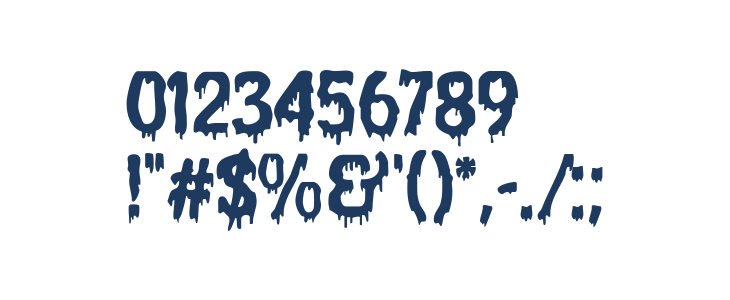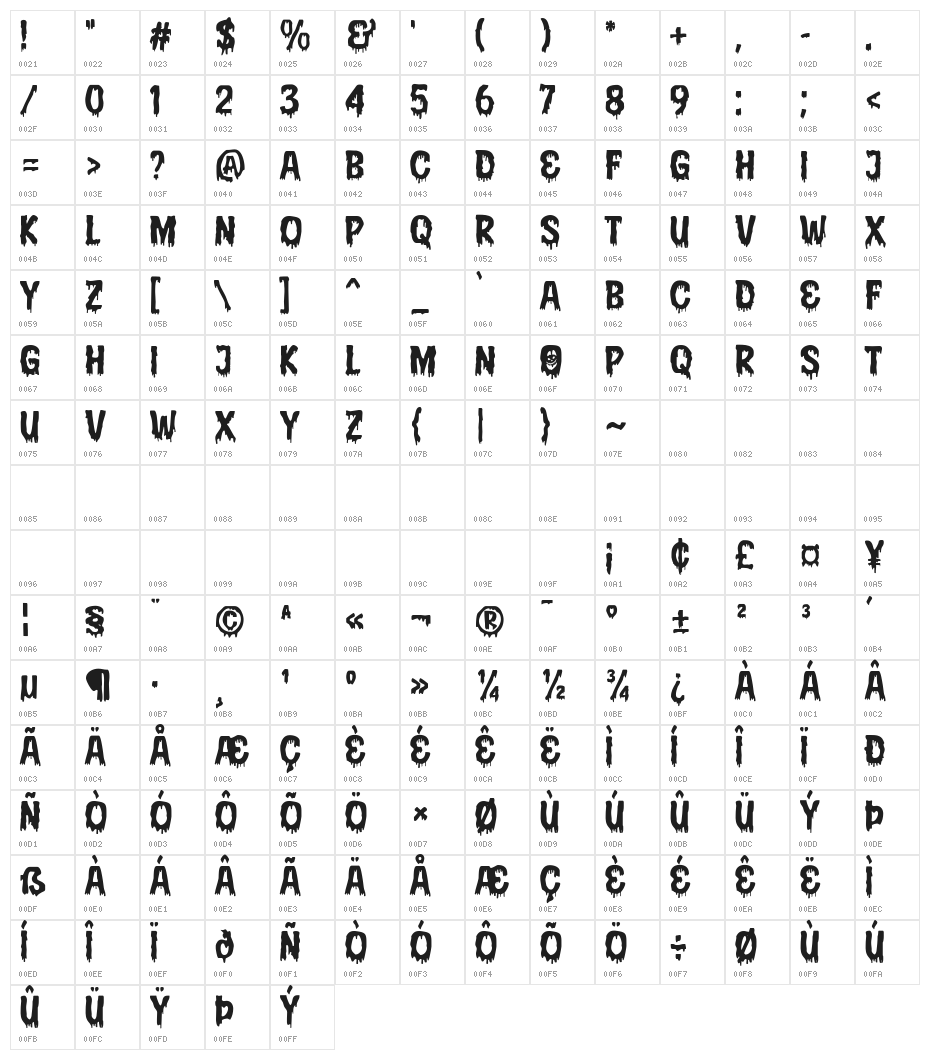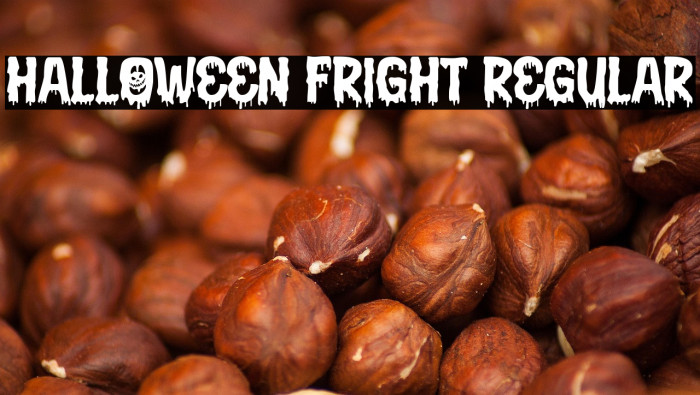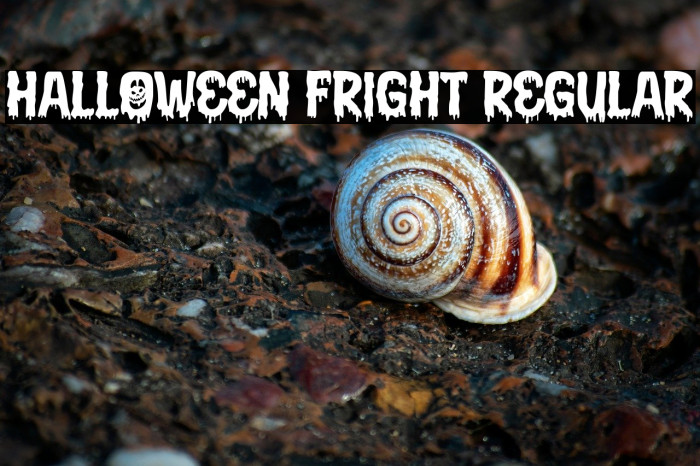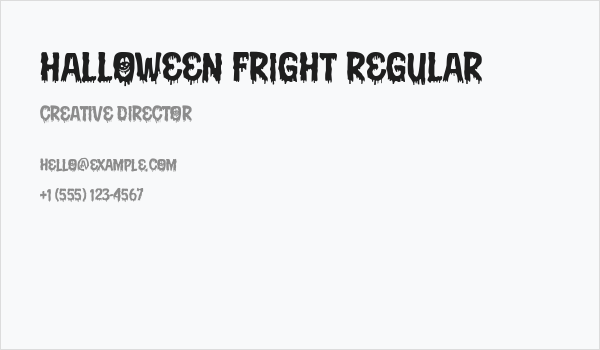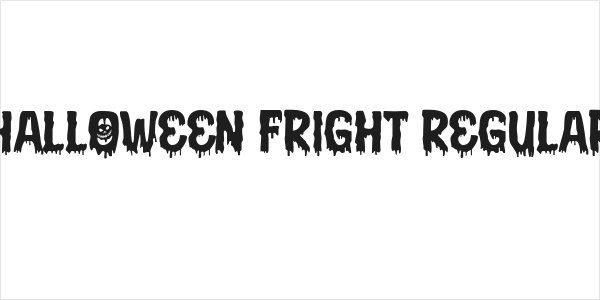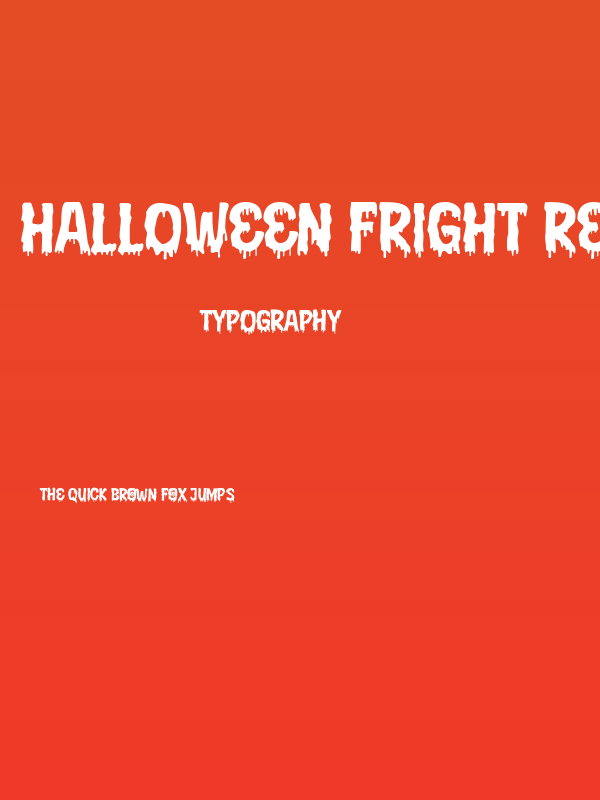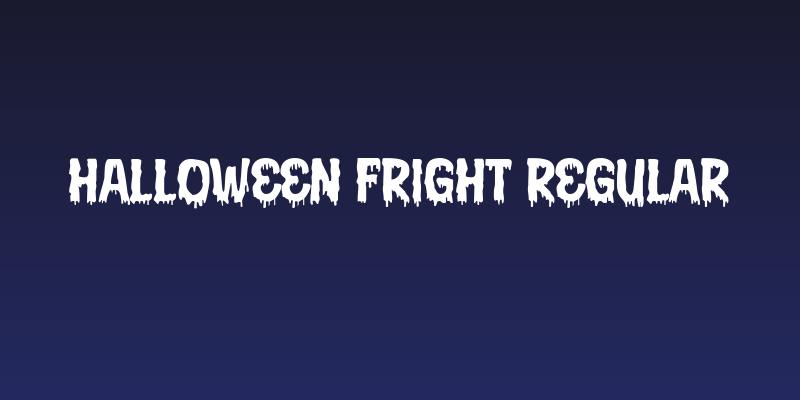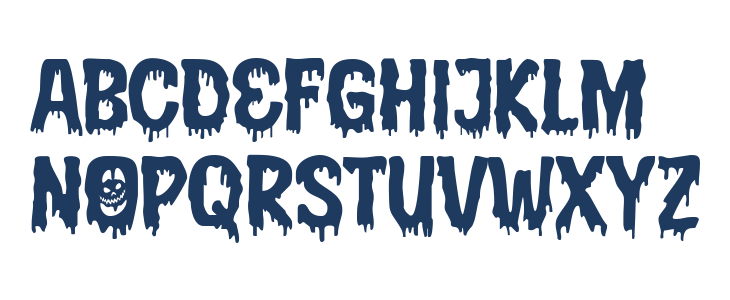
Halloween Fright Regular Font
Halloween Fright Regular Description
This font embodies a spooky and eerie aesthetic, perfect for Halloween-themed projects. The letters appear as if they are dripping, reminiscent of melting wax or goo, adding a chilling effect. Each character maintains a consistent style with jagged edges and irregular forms, enhancing the unsettling vibe. The bold and dramatic appearance makes it ideal for capturing attention and evoking a sense of mystery and horror. The numbers and special characters follow the same dripping motif, ensuring a cohesive look across all text elements.
| Proposed Projects | Ideal for Halloween party invitations, horror movie posters, haunted house flyers, and spooky-themed merchandise. |